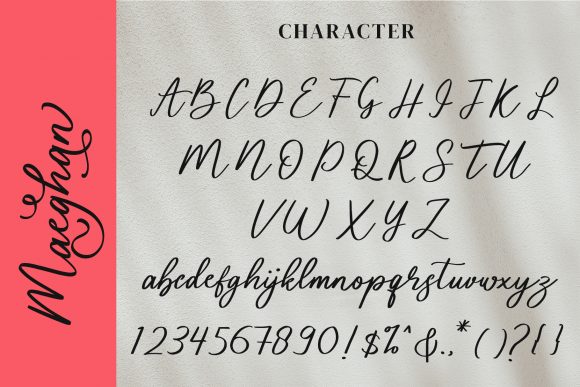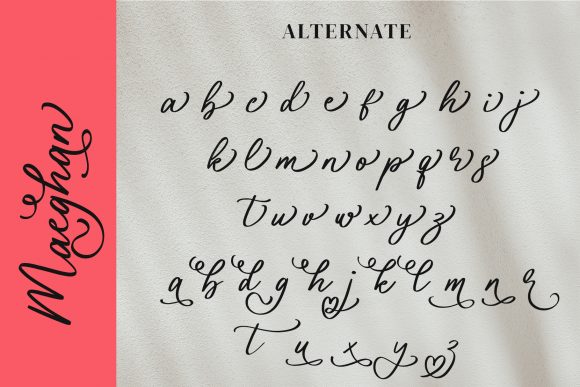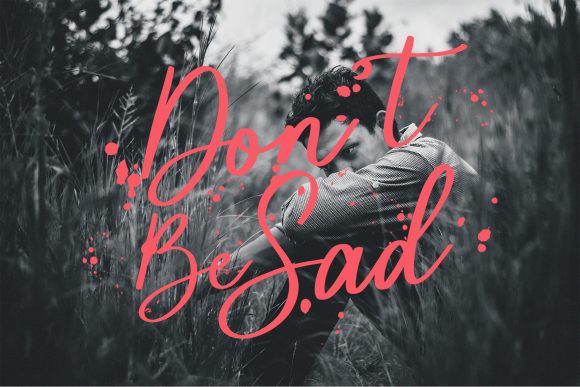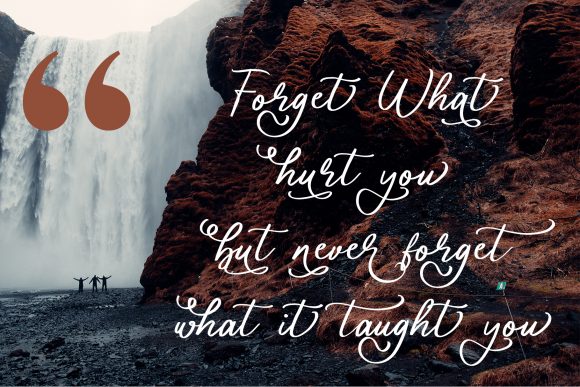
About Maeghan Font
Maeghan is a vintage handwritten font with a flowing vibe and a stunning impact. It will add a luxury spark to any design project that you wish to create! This font is PUA encoded which means you can access all of the amazing glyphs and ligatures with ease!